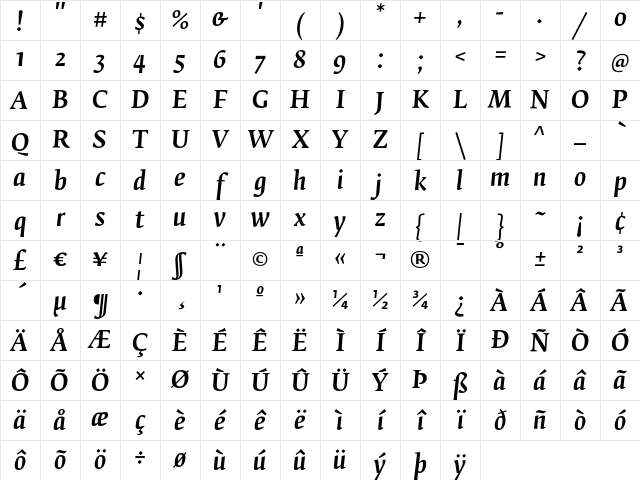
Fedra Serif B carries the refined structure of traditional serif typography, with bracketed terminals and considered proportions that communicate credibility and craft. The slanted form adds forward momentum and visual energy.
Pro Tip: Use Fedra Serif B for editorial body copy and considered headline work. Pair with a neutral sans for UI elements or captions to create a classic hierarchy.